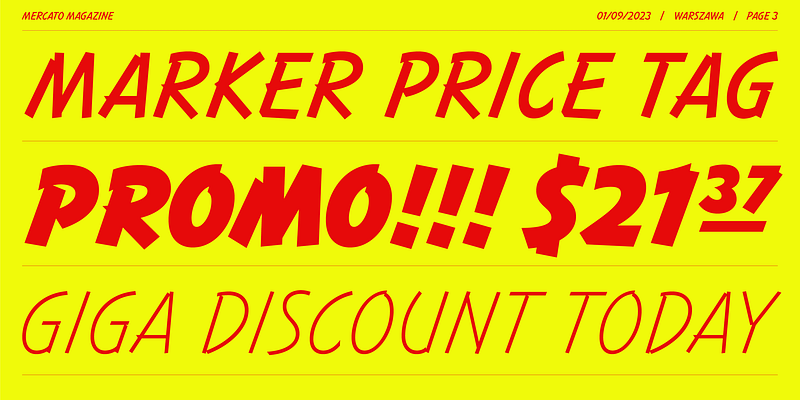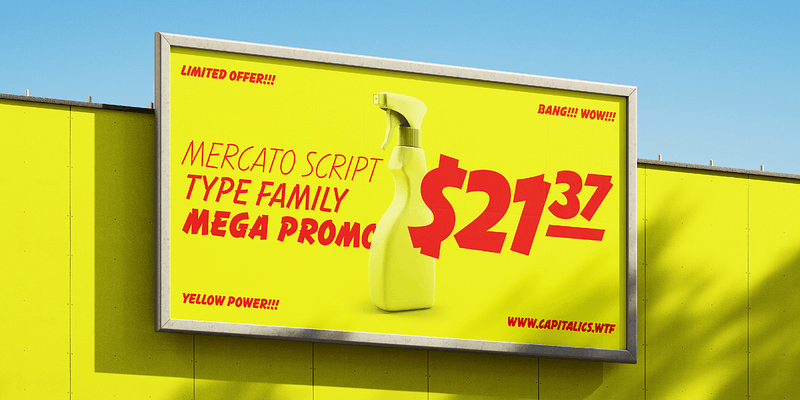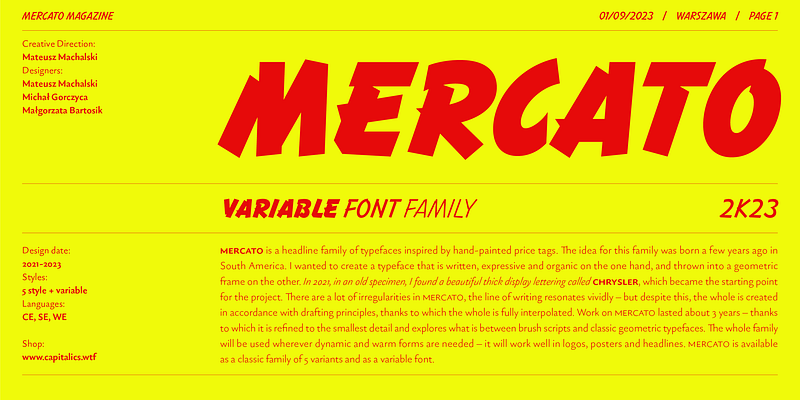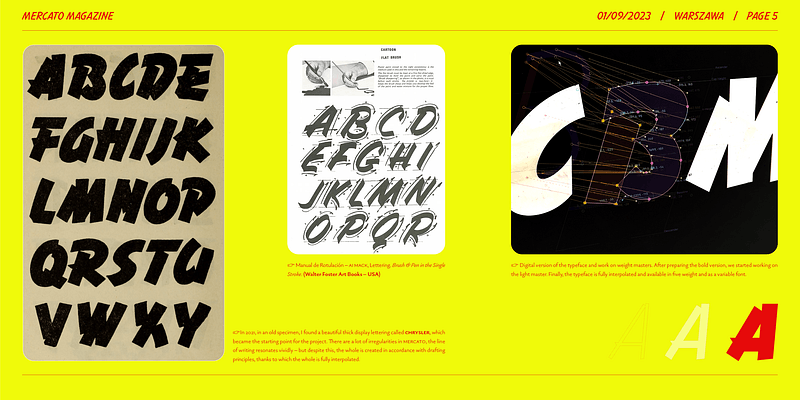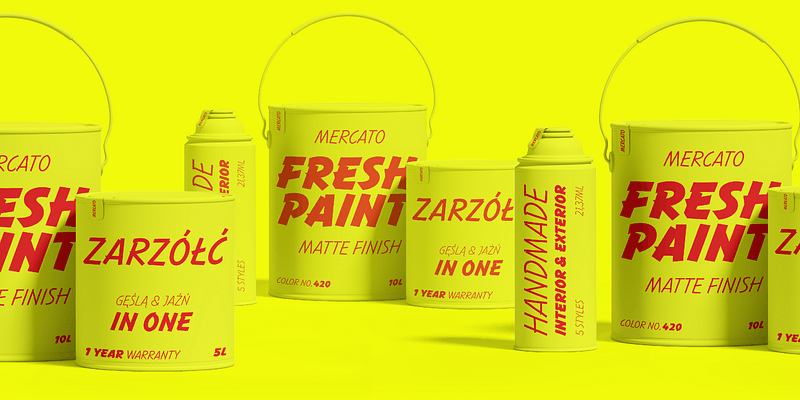
Design date: 2021-2023
MERCATO is a headline family of typefaces inspired by hand-painted price tags. The idea for this family was born a few years ago in South America. I wanted to create a typeface that is written, expressive and organic on the one hand, and thrown into a geometric frame on the other. In 2021, in an old specimen, I found a beautiful thick display lettering called Chrysler, which became the starting point for the project. There are a lot of irregularities in MERCATO, the line of writing resonates vividly - but despite this, the whole is created in accordance with drafting principles, thanks to which the whole is fully interpolated. Work on MERCATO lasted about 3 years - thanks to which it is refined to the smallest detail and explores what is between brush scripts and classic geometric typefaces. The whole family will be used wherever dynamic and warm forms are needed - it will work well in logos, posters and headlines. MERCATO is available as a classic family of 5 variants and as a variable font.
Design team: Mateusz Machalski, Michał Gorczyca, Małgorzata Bartosik.